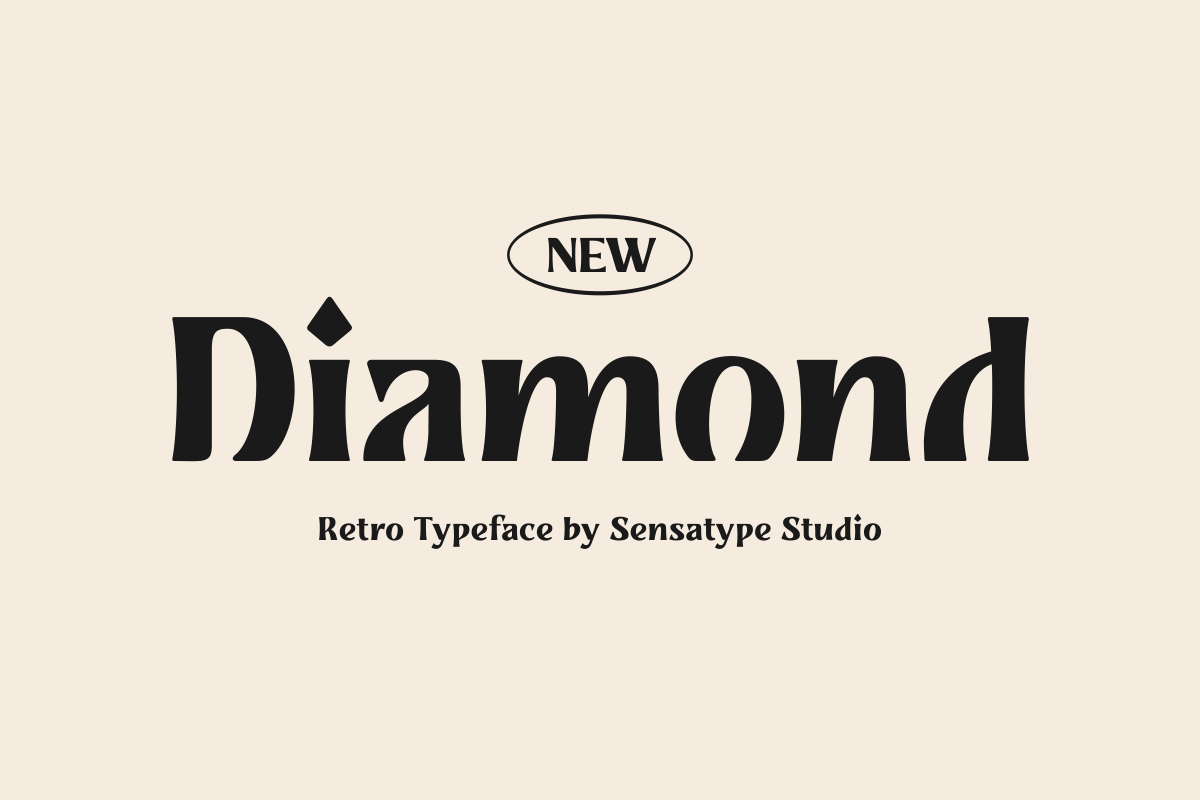
Diamond
-Vintage Retro Display Typeface
Diamond- Vintage Retro Display Typeface
Diamond is a vintage retro display typeface inspired by classic typography styles. Featuring unique curves, distinctive characters, and an old-style personality, this typeface brings a timeless and creative look to modern design projects.
Designed for designers who need a bold and memorable visual style, Diamond is perfect for branding, logo design, posters, packaging, labels, wedding invitations, social media graphics, and editorial layouts. Its retro character helps create standout designs with a classic yet contemporary feeling.
With special characters and carefully crafted letterforms, Diamond gives designers more flexibility to create unique typography compositions for various creative projects.